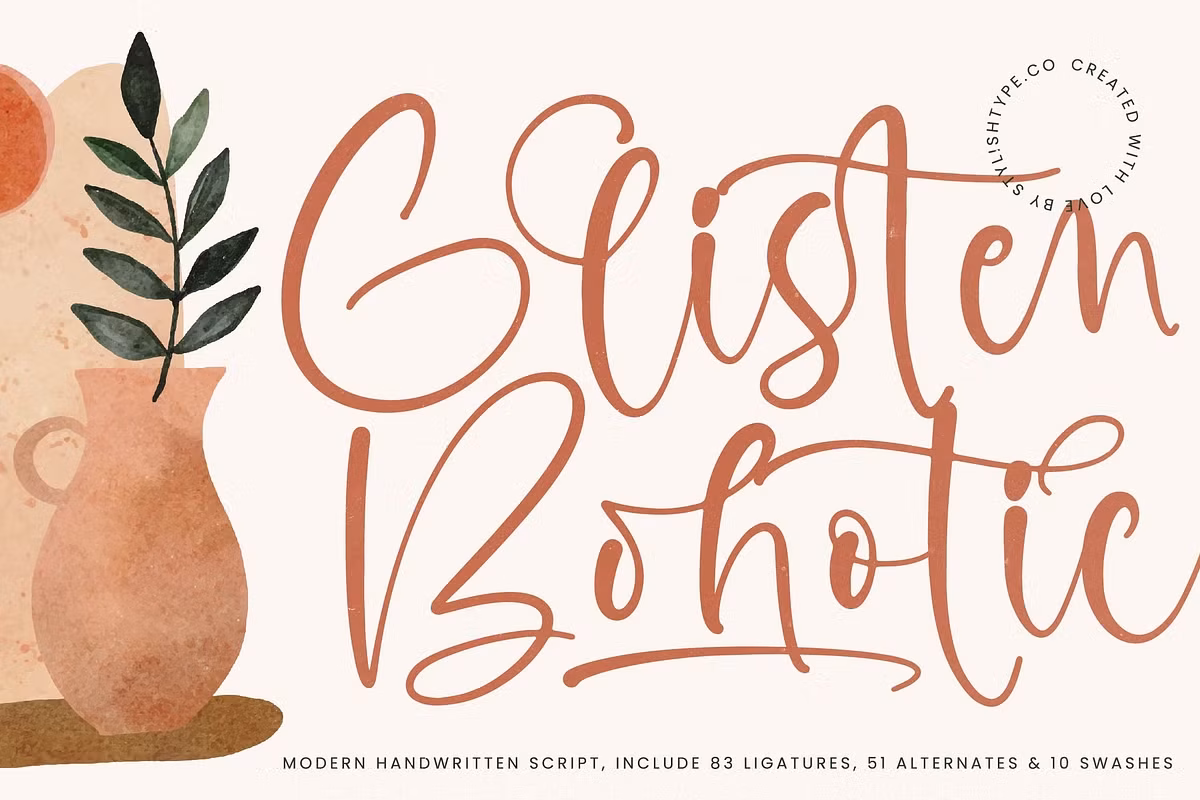
Glisten Bohotic Modern Handwritten Free Download
Glisten Bohotic – Modern Handwritten Font Free Download is a stylish and free-spirited script typeface that blends boho charm with contemporary elegance. Please note, you are required to purchase this font for commercial use. It is available for free download for testing and personal projects only.
With its flowing strokes, natural curves, and signature-style aesthetic, Glisten Bohotic is perfect for wedding invitations, branding, Instagram quotes, logos, beauty products, and lifestyle content. It adds a personal, handwritten touch that feels both artistic and refined.